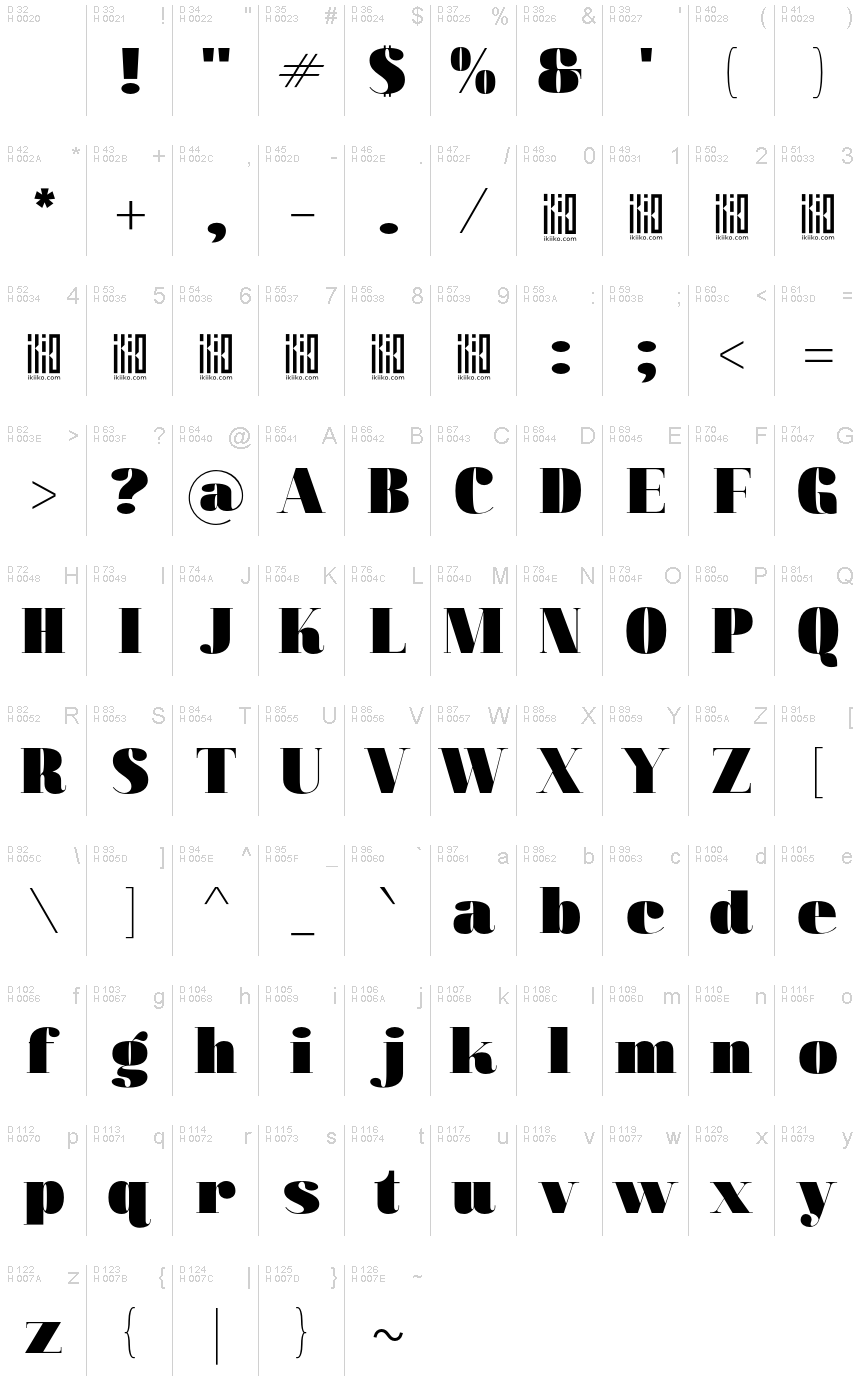
Walking Broadway ikiiko.com
Walking Broadway, a creation by Ikiiko Type, stands out with its bold serifs that command attention and convey a sense of grandeur. The font's substantial letterforms exude confidence and stability, making it an ideal choice for headlines that need to make an impact. Its aesthetic charm lies in the balance between classic typography and modern flair, allowing it to bring a touch of sophistication to any design.
This font's strong presence makes it particularly well-suited for branding projects, editorial work, and advertising campaigns where a memorable impression is key. Whether gracing the cover of a magazine or anchoring an eye-catching poster, Walking Broadway is poised to leave its mark with elegance and authority.